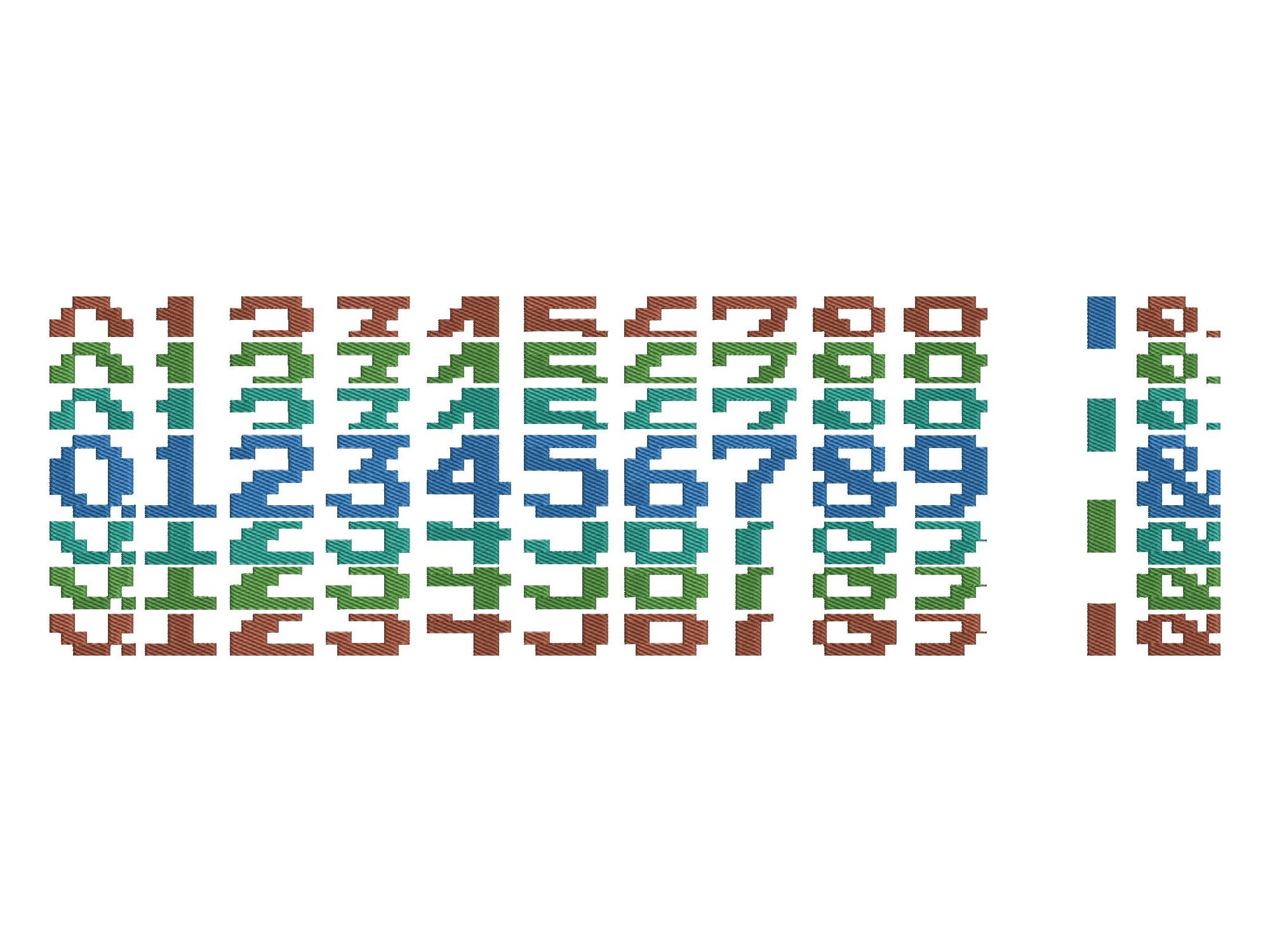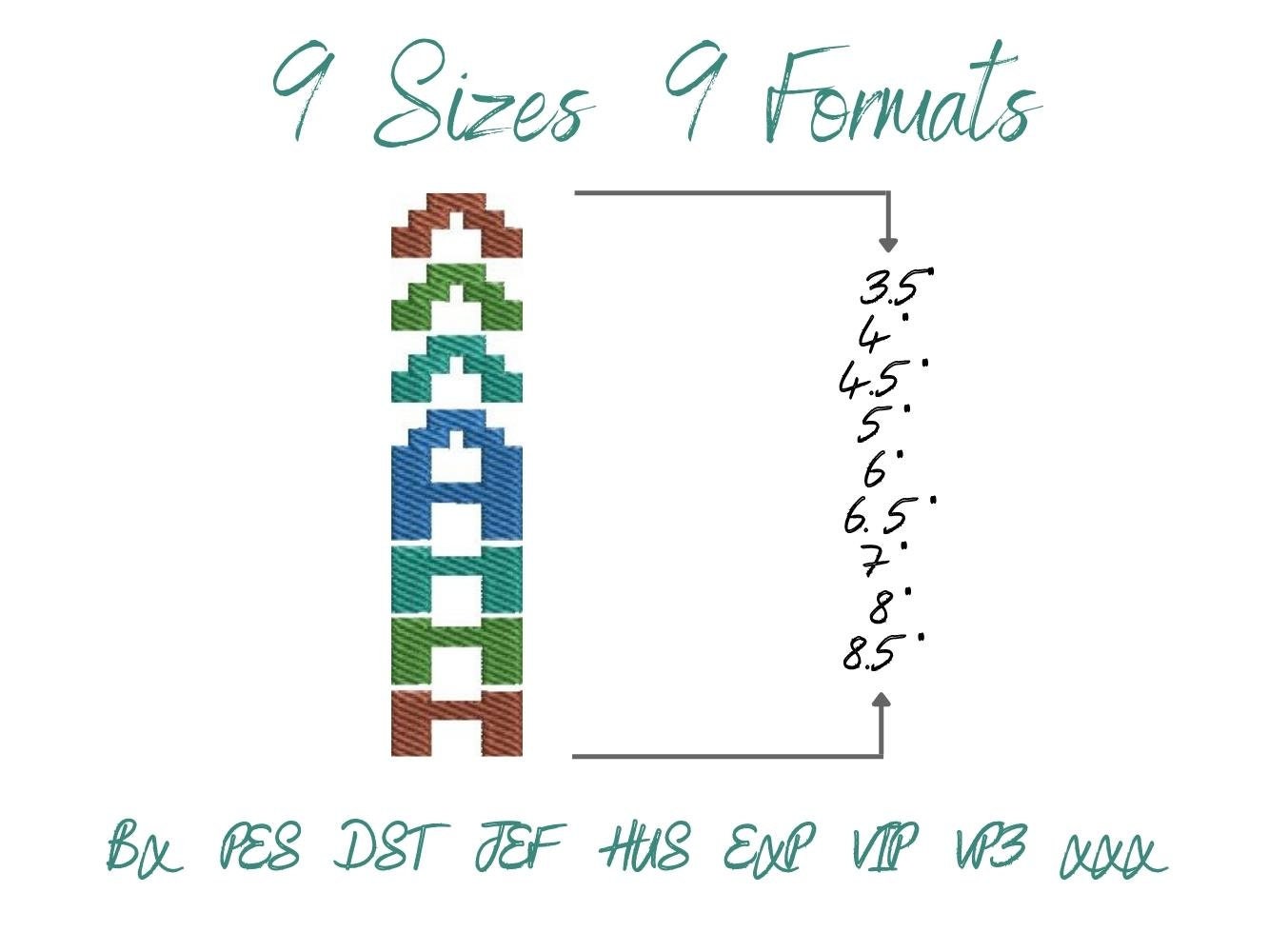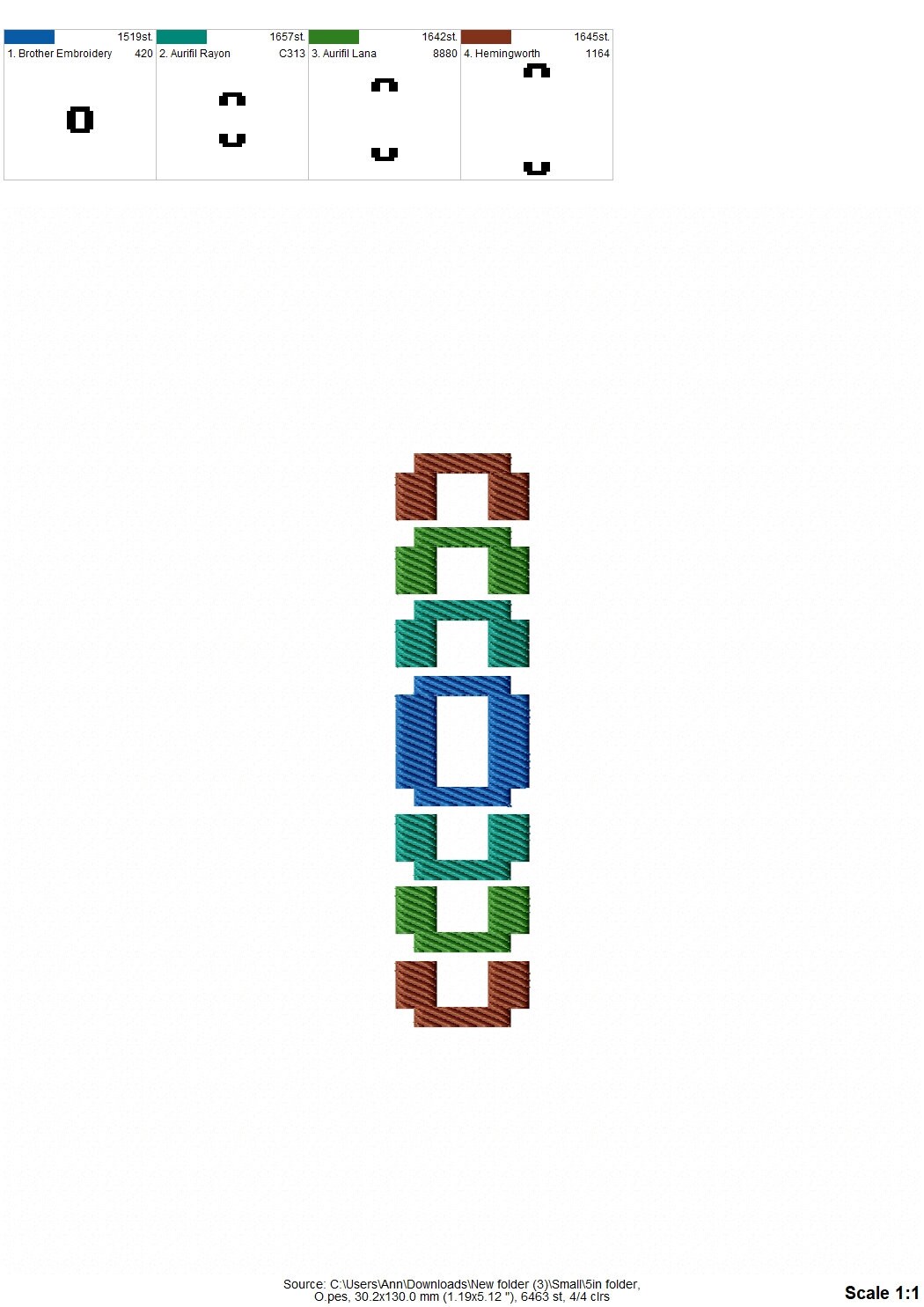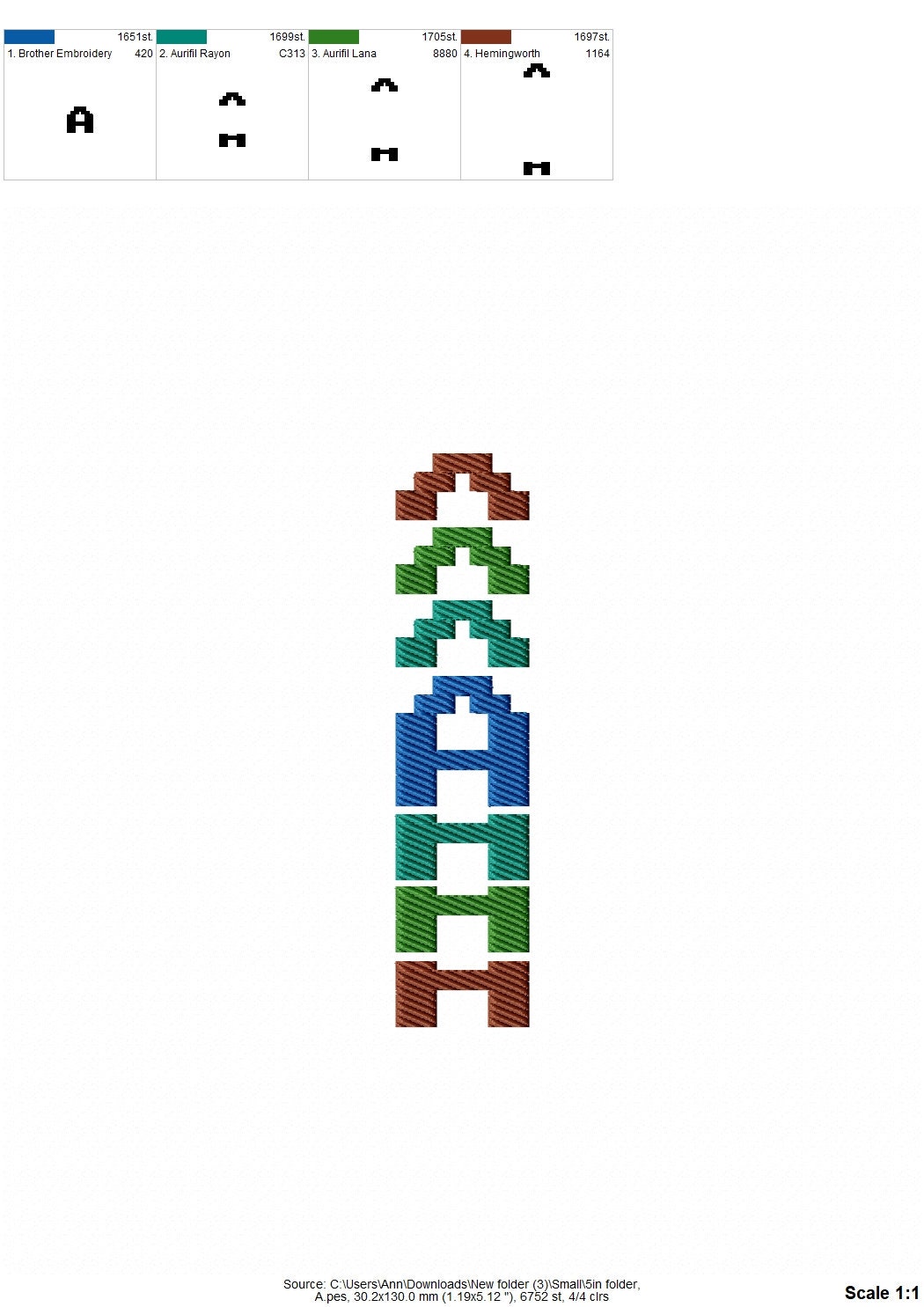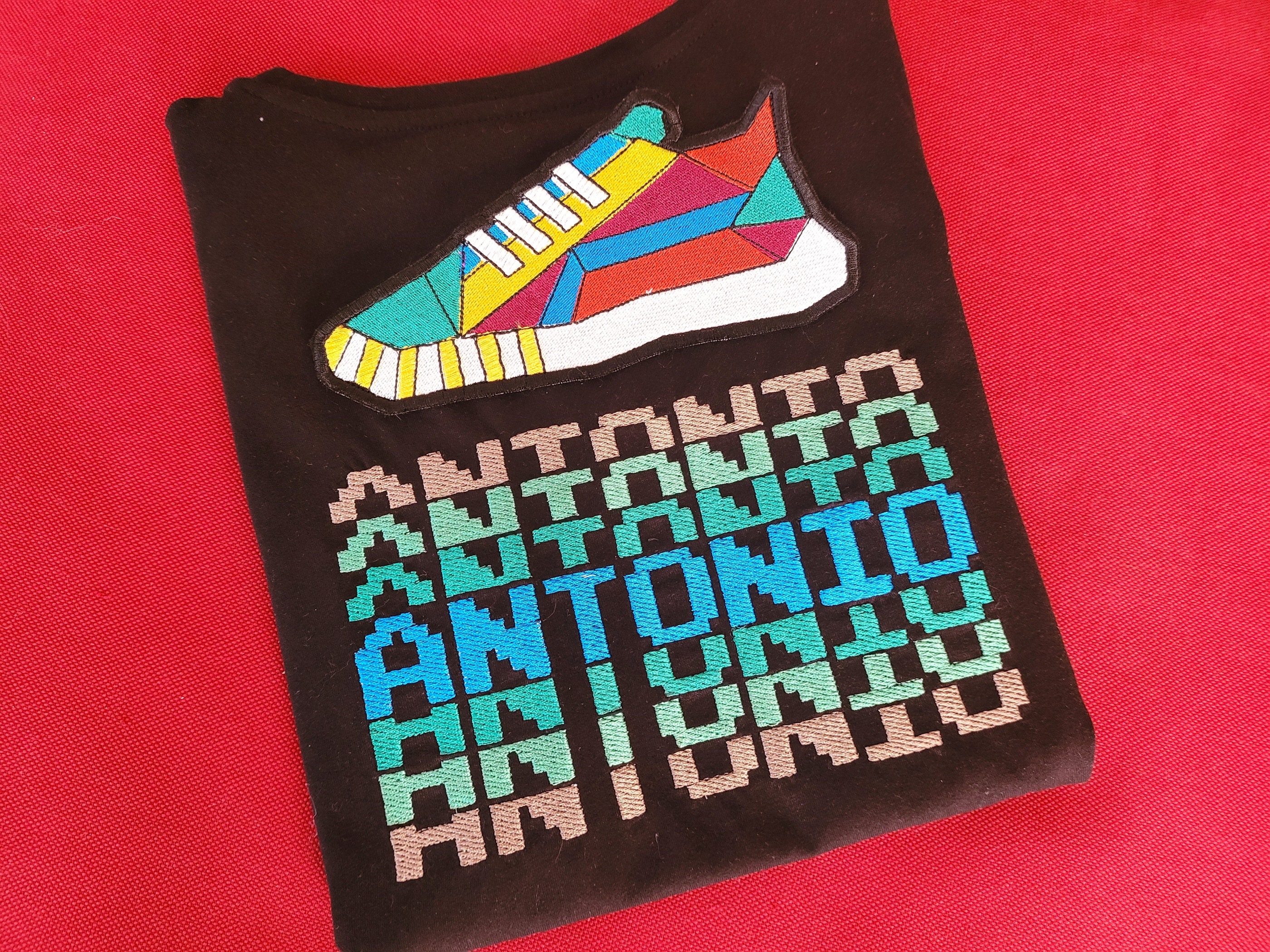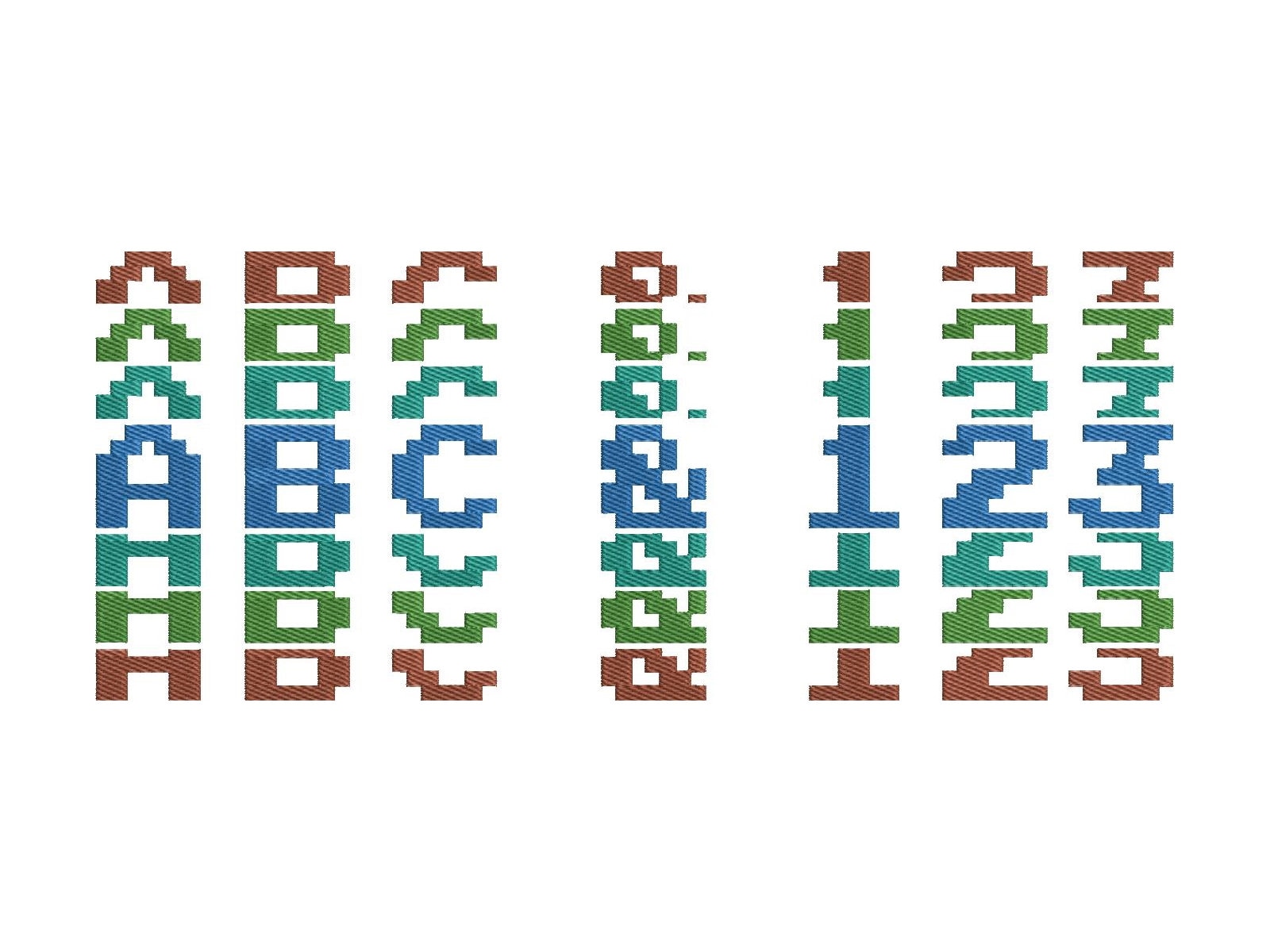
Pixel Stacked Font fill stitch boy sports trend alphabet letters, awesome miner bricks machine embroidery designs in many sizes, BX included
The whole alphabet:
uppercase A-Z, numbers 0-9, special marks dot and ampersand . &